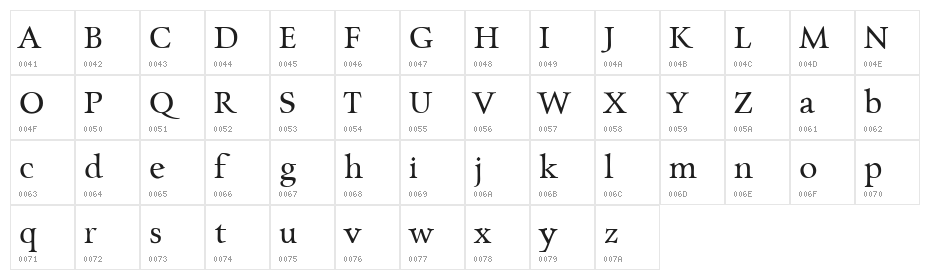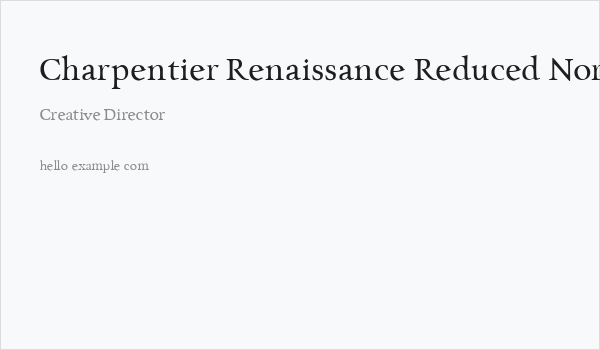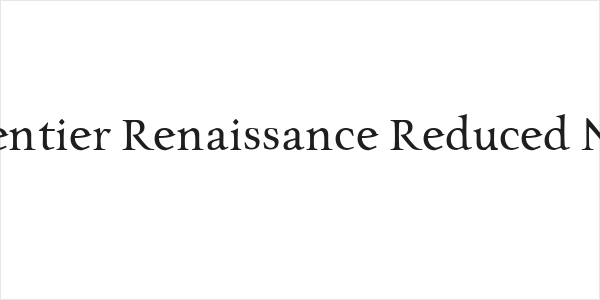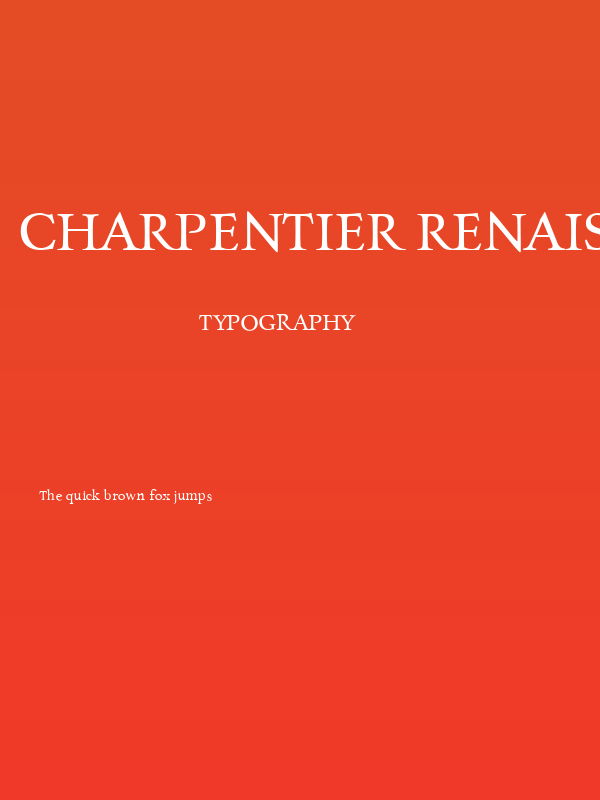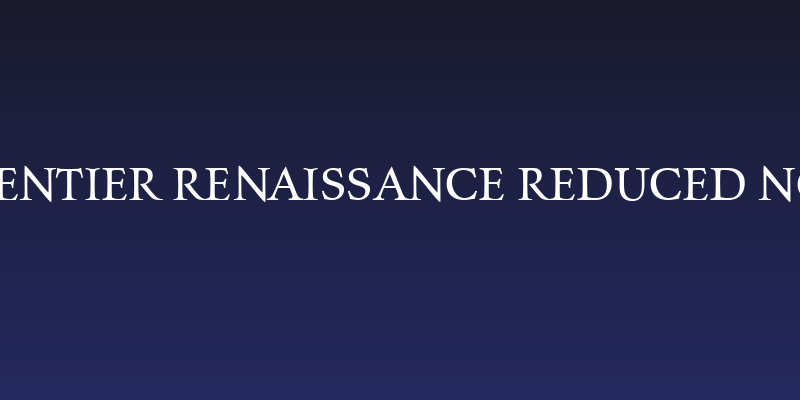
Charpentier Renaissance Reduced Normal Font
Charpentier Renaissance Reduced Normal Description
This font exhibits a classic serif style with elegant and refined strokes. The uppercase letters are characterized by their strong vertical lines and subtle curves, giving them a timeless and sophisticated appearance. The lowercase letters maintain a consistent style with a slightly more delicate touch, enhancing readability while preserving the font's traditional aesthetic. The numerals are well-proportioned, aligning seamlessly with the overall design. Special characters are crafted with the same attention to detail, ensuring a cohesive look across all glyphs. The font's design is reminiscent of Renaissance typography, offering a blend of historical charm and modern usability.
| Overall Style | Classic |
| Use Case | Headlines, Body text, Logos |
| Proposed Projects | Ideal for projects requiring a touch of elegance and tradition, such as book covers, formal invitations, and historical documents. |